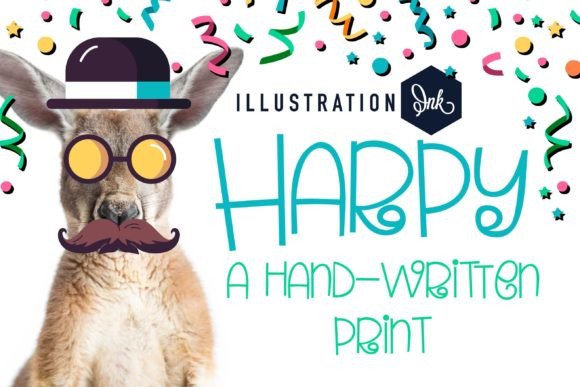
Unleash the allure of handwritten elegance with Harpy Font, a script font family crafted by Illustration Ink. Designed to captivate the senses with its youthful playfulness and whimsical curls, Harpy Font elevates your designs to new heights of creativity.
Dive into the world of Harpy Font and experience the charm of handwritten artistry. This beautiful font family offers a captivating visual experience, infusing your creations with a touch of human connection and authenticity. Let your words dance across the page, leaving a trail of enchanting beauty that captivates and inspires.
With Harpy Font, every letter carries a story, evoking emotions and igniting imaginations. Its intricate lines and graceful curves add a touch of refined elegance to your designs, making them stand out from the ordinary. Whether you're creating personal invitations, greeting cards, or embarking on creative projects, Harpy Font will elevate your vision and leave a lasting impression.
Step into the realm of handwritten artistry and let Harpy Font guide you on a journey of creative exploration. Its versatile nature allows you to express yourself in countless ways, from heartfelt messages to playful invitations. Unleash your creativity and let Harpy Font transform your words into captivating masterpieces that resonate with your audience.
Discover the endless possibilities of Harpy Font and unlock the true potential of your designs. Let your imagination soar and allow this enchanting font family to take your creativity to new heights. Embrace the art of handwritten beauty and create designs that captivate hearts and minds, leaving an indelible mark on the world.